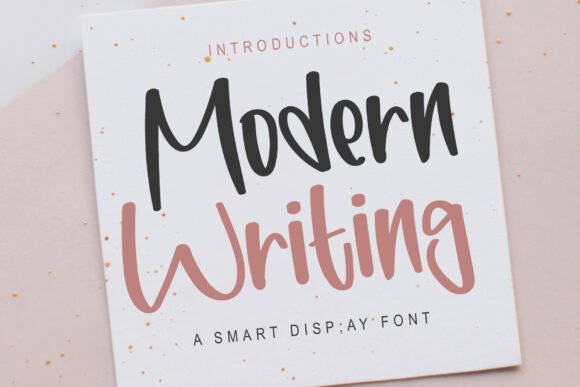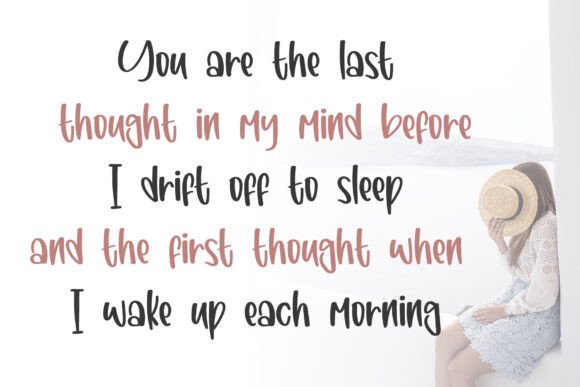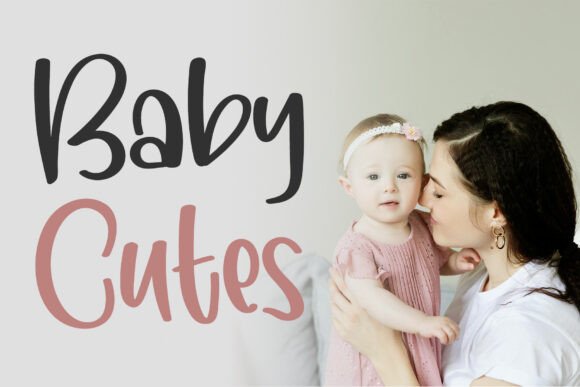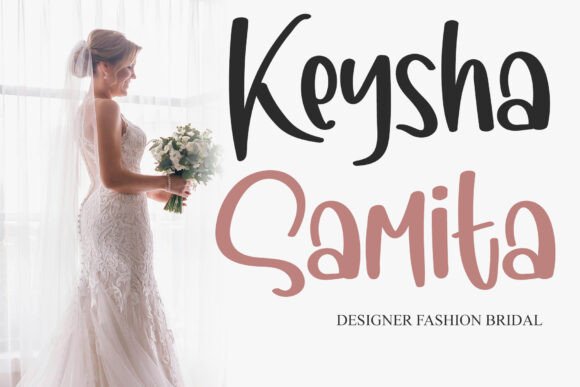
Modern Writing Font
About the Modern Writing Font
Unleash your creativity with Modern Writing Font, a versatile font perfect for a wide range of applications. Modern Writing Font is a bold retro script font style with a rounded touch. Equipped with all complete characters ranging from uppercase letters, lowercase letters, numbers, punctuation marks, and multi-lingual support, this font is ready to be used in any project. Very suitable for logotype, Stickers, Packaging design, Cricut Project, headlines, brand identity, posters, magazines, books, YouTube, Instagram, websites, Canva, Corjl, or any of your creative design projects. Use this font to add that special modern touch to any design idea you can think of!
Modern Writing Font Usage Examples
Modern Writing Font Example